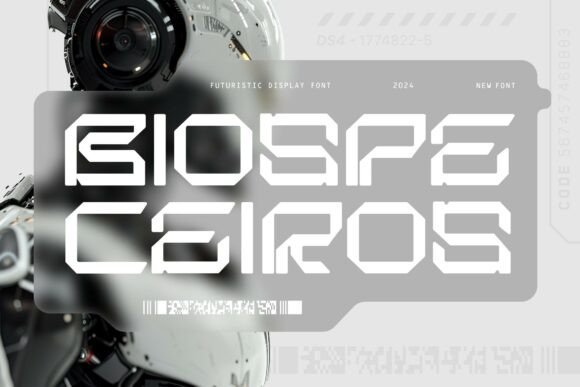
The Futuristic World of Biospe Ceiros Font
I’ll never forget the design project that led me to discover Biospe Ceiros Font. I was working on a futuristic sci-fi poster, and I needed a font that would capture the essence of innovation and technology. After hours of searching, I stumbled upon Biospe Ceiros, and it was love at first sight. The bold, angular lines and unique cutouts within the letters immediately caught my attention. I knew right then and there that this font was the perfect fit for my project.
An Honest Review of Biospe Ceiros Font
• ✨ Futuristic and geometric design: Biospe Ceiros Font is perfect for creating a high-tech, sci-fi aesthetic.
• ✅ Unique letterforms: The sharp edges and bold lines make it stand out from other fonts.
• 🔥 High-impact titles: This font excels in creating visual impact, making it perfect for titles or headlines.
• 💻 Versatile: Suitable for various design projects, such as posters, branding, or game designs.
While Biospe Ceiros Font is an amazing addition to any design project, there are a few things to keep in mind:
• ⚠️ Legibility at small sizes: Due to its bold and geometric design, Biospe Ceiros Font may not be the best choice for body text or small font sizes.
• 🤔 Limited font styles: Currently, Biospe Ceiros Font comes in a single style, which might limit its versatility in certain design projects.
The Designer Inspiration Behind Biospe Ceiros Font
The story behind Biospe Ceiros Font is one of innovation and creativity. The designer, inspired by the futuristic world of sci-fi and technology, aimed to create a font that would capture the essence of forward-thinking design. By experimenting with bold, angular lines and unique cutouts, the designer crafted a font that’s both modern and memorable.
Q: What type of projects is Biospe Ceiros Font best suited for?
A: Biospe Ceiros Font is perfect for technological, futuristic, robotic, or dystopian themes, such as posters, branding, or game designs.
Q: Can I use Biospe Ceiros Font for body text?
A: While Biospe Ceiros Font is amazing for titles and headlines, it may not be the best choice for body text due to its bold and geometric design.
Q: Is Biospe Ceiros Font available in multiple styles?
A: Currently, Biospe Ceiros Font comes in a single style, but its versatility and range of OpenType features make it suitable for various design projects.